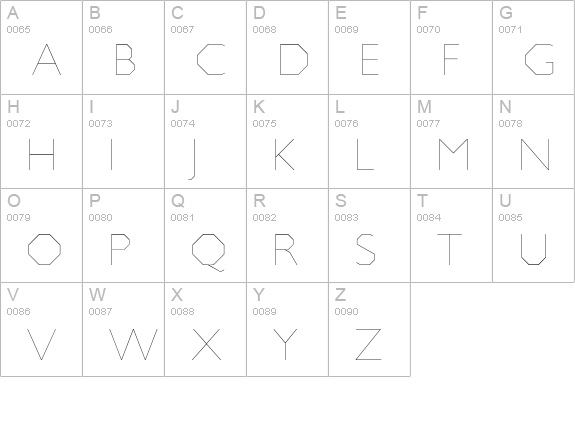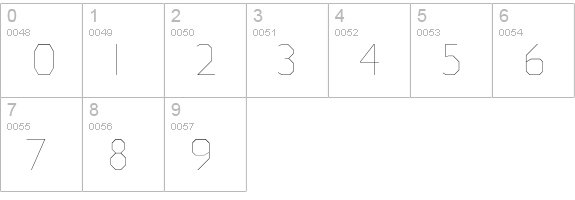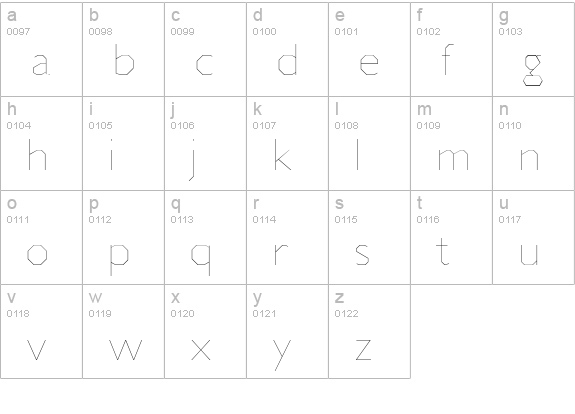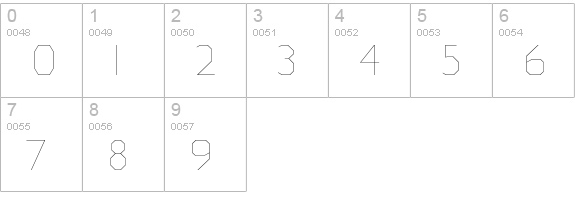
Jillican UltraLight is an airy, ultra-refined variant in the Jillican typeface family \xE2\x80\x94 well suited to minimalist headlines and refined display use.
Jillican UltraLight font is a stunning display typeface that exudes elegance and sophistication. With its delicate and graceful letterforms, this font is perfect for creating a sense of refinement and style in your designs. Its ultra-light weight adds a touch of airiness and delicacy, making it ideal for projects that require a modern and chic aesthetic. What sets Jillican UltraLight font apart is not only its exquisite design but also the fact that it is available for free download at FontsMarket.com. This means that you can easily access this beautiful font without any cost, allowing you to elevate your projects without breaking the bank. Whether you're working on branding, editorial design, or any other creative endeavor, Jillican UltraLight font is sure to make a lasting impression. Download it today and add a touch of sophistication to your designs!